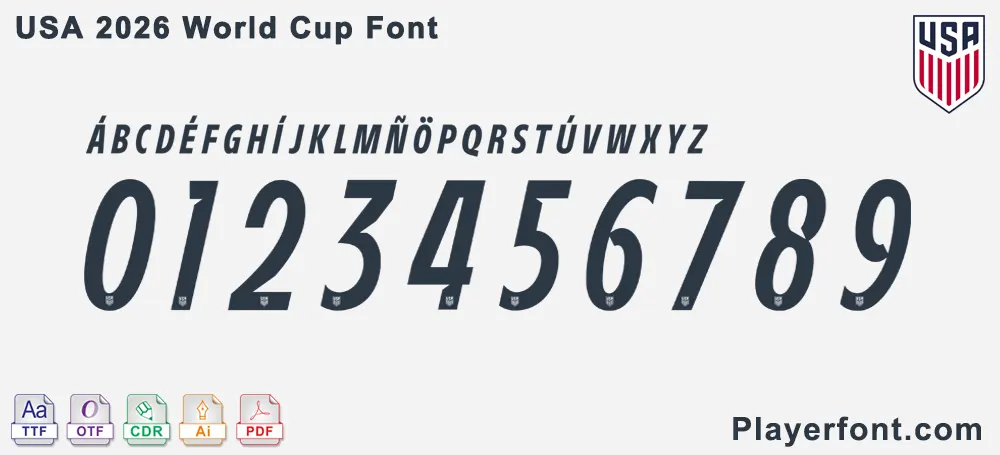
Prepare for the biggest sporting event in the world with the official USA 2026 World Cup Font. Whether you are designing merchandise, creating fan gear, or crafting promotional materials, this font kit captures the energy and style of the USA 2026 host city branding.
Inspired by the dynamic identity of the World Cup, this typeface is essential for any designer, small business owner, or soccer fan looking to create authentic, high-quality content.